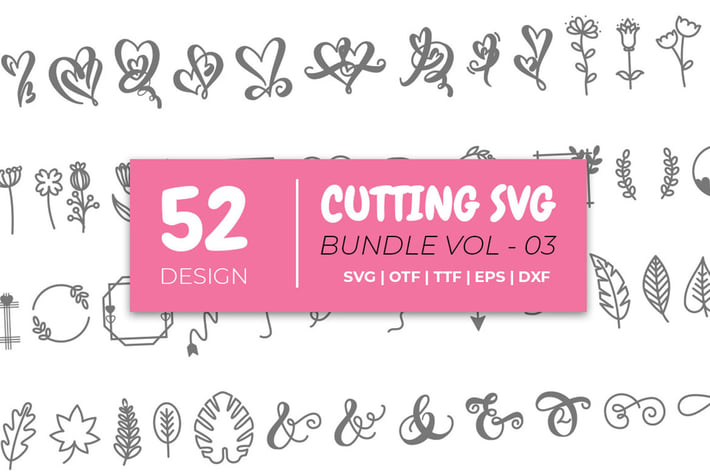
Dingbat Font Vol. 03
Cutting SVG bundle includes 50 designs elements that can be used for your design for many purposes especially on t-shirts, mugs, signs, cards, scrapbooking, vinyl decals, and much more.